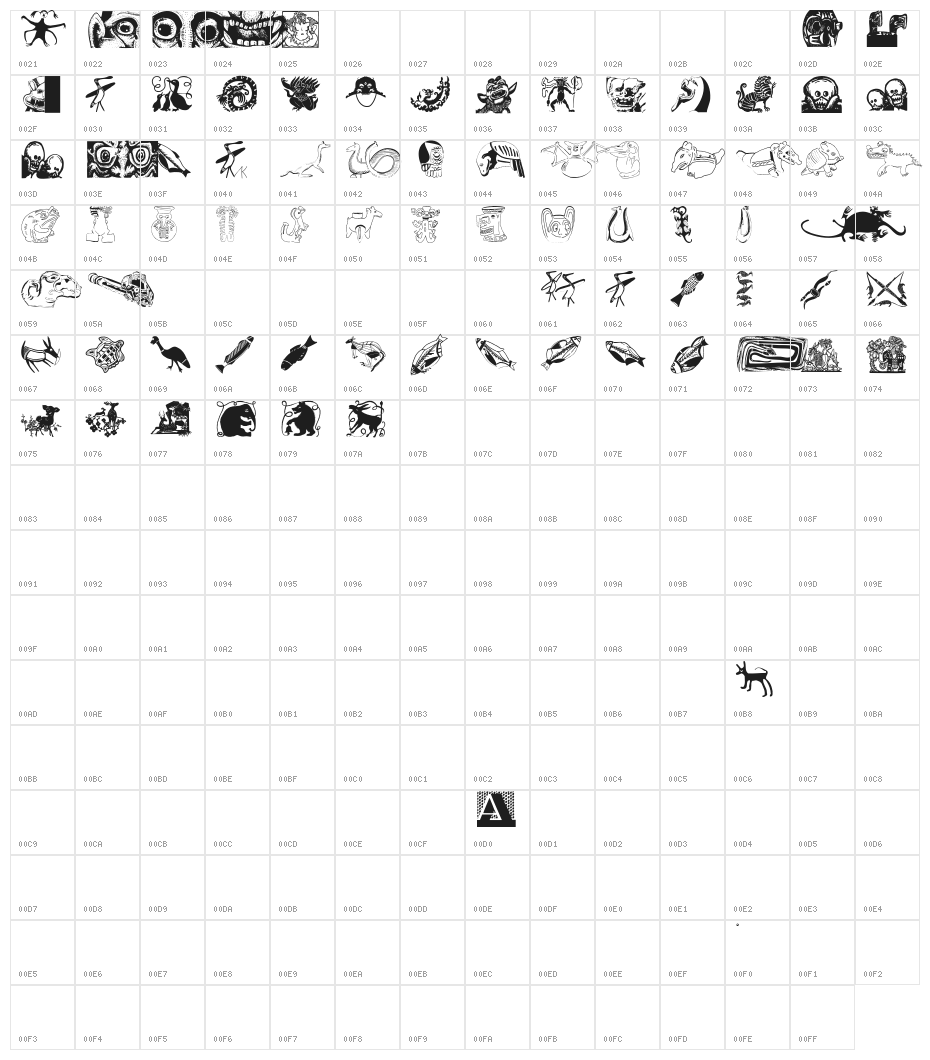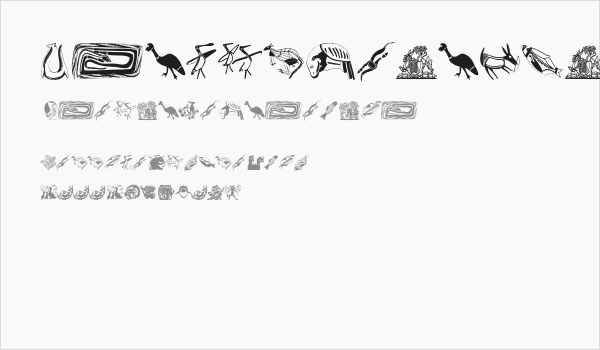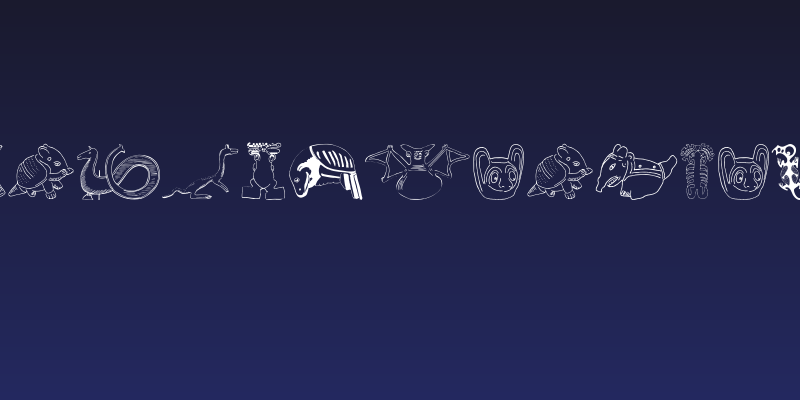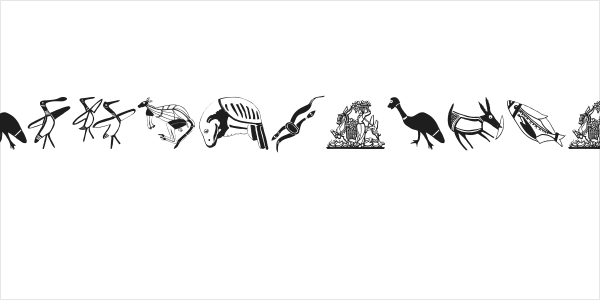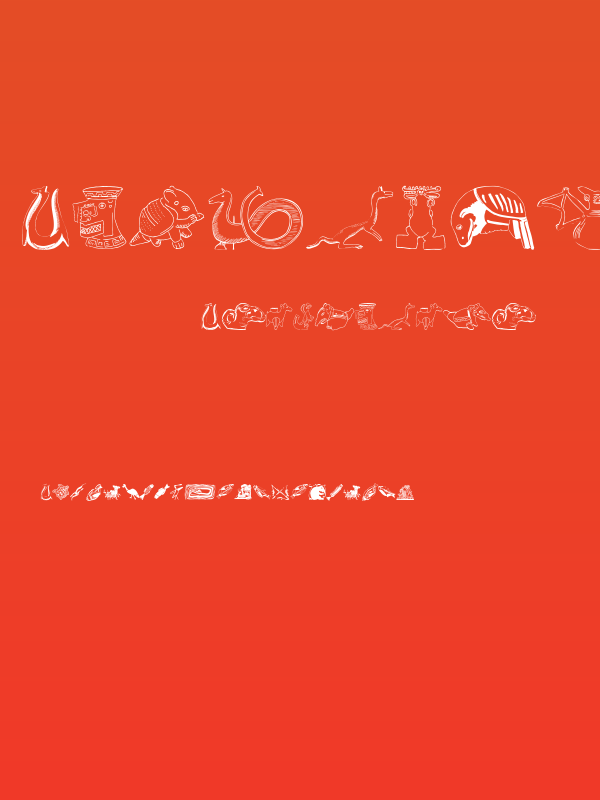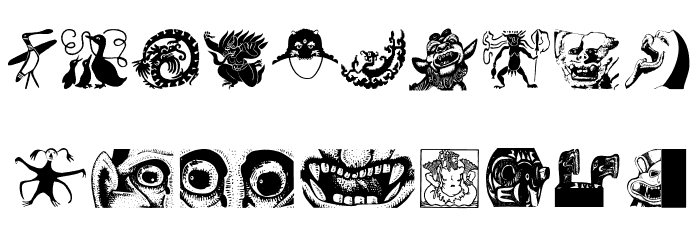
TribalDesignsUno Font
TribalDesignsUno Description
This set of characters is a highly decorative and artistic collection, featuring intricate tribal and mythical designs. Each character is represented by a unique illustration, ranging from animals and mythical creatures to abstract patterns and faces. The style is bold and expressive, with a strong emphasis on visual storytelling and cultural motifs. The characters are not uniform in shape or size, creating a dynamic and visually engaging experience. The intricate details and artistic flair make this collection suitable for creative and thematic projects.
| Use Case | Logos, Posters, Artistic Designs |
| Proposed Projects | Ideal for cultural art projects, themed event posters, creative branding, and decorative elements in design work. |